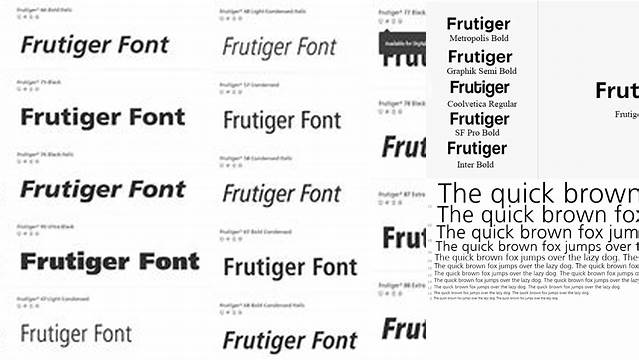
Free Frutiger Font: How To Find & Use It (Legally)
Are you a design enthusiast or a branding aficionado? Have you been captivated by the clean lines and timeless appeal of the Frutiger font? If so, you're in good company. Frutiger, a sans-serif typeface designed by Swiss designer Adrian Frutiger, has become a staple in the design world, known for its legibility and versatility. It's widely used in wayfinding systems, corporate branding, and a variety of other applications where clear communication is key. The question often arises: how can you get your hands on this iconic font without breaking the bank? This guide will walk you through everything you need to know about how to get Frutiger font free, exploring your options, potential pitfalls, and providing you with valuable insights to make informed decisions.
Understanding Frutiger and Its Appeal
Before diving into the specifics of how to download Frutiger font free, let's take a moment to appreciate what makes this typeface so special. Frutiger's design philosophy prioritizes readability and clarity, making it an excellent choice for both print and digital media. The font's open counters and humanist characteristics contribute to its effortless readability, even in small sizes or at a distance. The design's geometric influences provide a modern feel, while the subtle variations in stroke weight add a touch of elegance and sophistication. This unique combination of qualities has cemented Frutiger's place as a highly sought-after font, particularly in the realms of branding, editorial design, and user interface design. The font's adaptability is also a key factor in its widespread popularity. Whether you're designing a logo, creating website content, or crafting marketing materials, Frutiger can seamlessly integrate into diverse design projects. Its ability to convey information in a clear, concise, and visually pleasing manner is a testament to Adrian Frutiger's design genius. Moreover, the font's association with iconic brands and public signage reinforces its prestige, adding to its allure. Using Frutiger lends a sense of professionalism and refinement to any project, which is why many designers and businesses strive to incorporate it into their visual identity. Guys, if you are interested in Frutiger, you'll find it's like a trusty friend in your design toolkit, always ready to provide a clean and easy-to-read base for your text.
Exploring Free Alternatives to Frutiger
While directly obtaining the Frutiger font free of charge might be a challenge due to licensing restrictions, there are several excellent free alternatives that can mimic its aesthetic and functionality. Several sans-serif fonts share characteristics with Frutiger, offering similar legibility and a clean, modern look. One notable example is Open Sans, a widely used and freely available font designed by Steve Matteson. Open Sans is known for its excellent readability and is suitable for a wide range of applications, from body text to headlines. Its neutral design makes it a versatile choice for various design projects. Another great option is Lato, a sans-serif typeface created by Łukasz Dziedzic. Lato's semi-rounded letterforms and balanced design make it highly readable, even at smaller sizes, and it works well in both print and digital environments. Guys, its friendly, approachable design makes it suitable for use in corporate branding, web design, and other areas where a clean, modern appearance is desired. Other alternatives to look out for are Montserrat, a geometric sans-serif inspired by signage in the Montserrat neighborhood of Buenos Aires, and Roboto, developed by Google and widely used in Android and other Google products. These alternatives don't just come close; they can sometimes offer a subtle stylistic twist that might fit your particular project even better than the original Frutiger. When you are searching for how to download Frutiger font free, you should always be aware of these options. It's important to consider that while these fonts are free, they may not be identical to Frutiger in every detail. However, they can effectively replicate the overall look and feel, providing a great option for those seeking a similar aesthetic without the associated costs.
- Adobe Fonts: While not entirely free, if you have an Adobe Creative Cloud subscription, you have access to a vast library of high-quality fonts, which may include suitable alternatives to Frutiger.
When searching for how to download Frutiger font free, these platforms provide a safe and legal way to explore different font options. Before downloading any font, be sure to verify the license terms and ensure that the font is suitable for your intended use. It's always a good idea to double-check the licensing for commercial use and make sure the font can be used in your project without any legal issues. These platforms are amazing resources and can help to get you started and finding great alternatives.
Sometimes, when you are working with fonts, you might run into a few bumps. Let's cover some frequent issues and their solutions. First, font installation problems are common. If a font doesn't appear in your application, double-check that it's installed correctly in your operating system. If you are using a specific design program, also ensure that it supports the font's format, such as TTF or OTF. Inconsistent font rendering can occur if you do not have the proper font files installed. It's also essential to clear the font cache if you encounter display issues. Sometimes, the cache holds outdated information, causing the font to render incorrectly. The steps for clearing the cache differ depending on your operating system, but a quick search will give you clear instructions for your setup. Another frequent problem is font compatibility. Different fonts are suited for various programs and operating systems. Make sure the font you're using is compatible with the software you're using and the device you are using. For example, older systems may not support all font file types. If you are using a font across multiple platforms, be sure to use compatible formats. A third common issue involves licensing conflicts. Double-check the license terms before using any font, especially for commercial projects. Using a font without the appropriate license can lead to copyright issues. If in doubt, consult with a legal professional specializing in copyright law. Guys, you always should know how to verify the licensing of your font. Consider that when you have to find out how to get Frutiger font free, the licensing becomes an essential part of the process.
Tips for Using Fonts Effectively
Now that we've covered the basics of finding and using fonts, let's dive into some best practices for font usage. Remember that choosing the right font is just the first step. To make your designs look the best, you need to use your fonts strategically. Pairing fonts is a crucial skill. Combining fonts that complement each other can create visual harmony and elevate your designs. Try to limit the number of font styles used in a single project to maintain consistency. Experiment with font pairings by considering different weights, styles, and sizes. Look for fonts that share similar characteristics. When you are looking at how to get Frutiger font free, you should also focus on complementary fonts. Another important aspect is legibility. Ensure that the font you use is easily readable, particularly in the intended context. For instance, thin fonts might be appropriate for headlines but may be hard to read in the body text. Also, take into account your font size and spacing. Selecting an appropriate size is vital to ensure readability, and using the correct line spacing and letter spacing can significantly improve the visual appeal and legibility of your text. For body text, aim for comfortable spacing that won't strain the eyes. Lastly, always consider the context. The font's use must align with the project's purpose and target audience. A playful font might be perfect for a children's book, but not for a corporate document. Before you settle on a font, consider your design's overall tone and message. When you are thinking about how to get Frutiger font free, you should always consider the context of use of your project and choose the best alternatives to suit the occasion.
Finding the Frutiger font free can be tricky, but it is essential to prioritize legal and ethical practices. The best way to achieve this is by understanding the licensing restrictions of any font you intend to use. While obtaining the exact Frutiger font without a license may not be feasible, numerous high-quality alternatives can achieve a similar look and feel. Open-source fonts like Open Sans and Lato provide excellent substitutes. Always be cautious when downloading fonts from unofficial sources to avoid potential security and legal problems. Familiarize yourself with font licenses and understand the permissible usage for each font. If you are starting, make sure to familiarize yourself with free font resources such as Google Fonts or Font Squirrel, where you can find various free, legally usable fonts. By doing this, you are not just avoiding potential copyright issues but also promoting the creativity of font designers. Choose the right font. Prioritize legibility and remember that the context of your project is an important element. Good luck, guys, and happy designing!